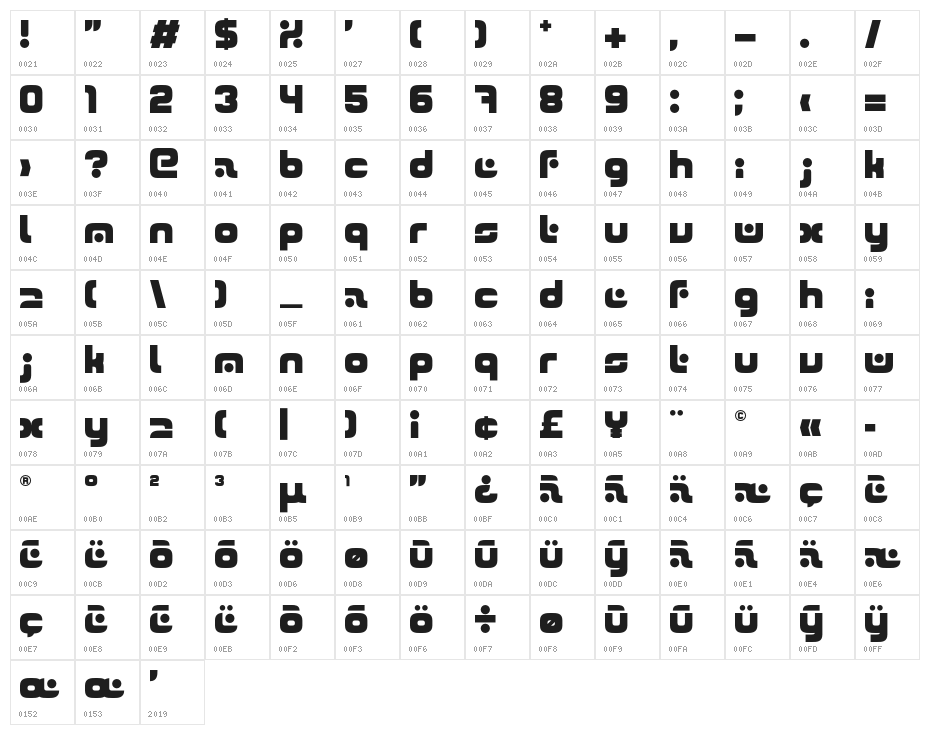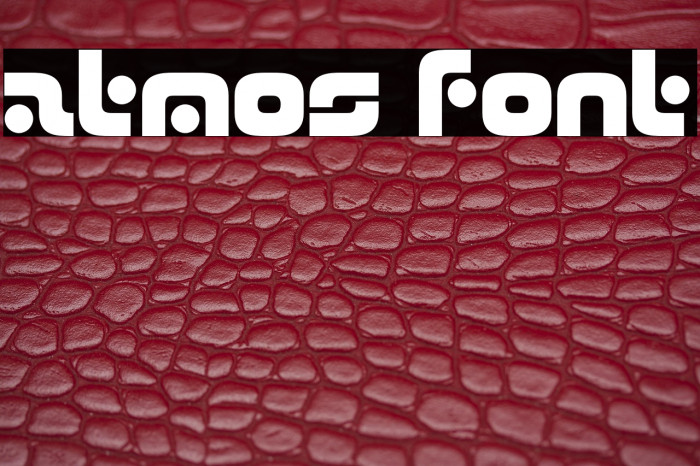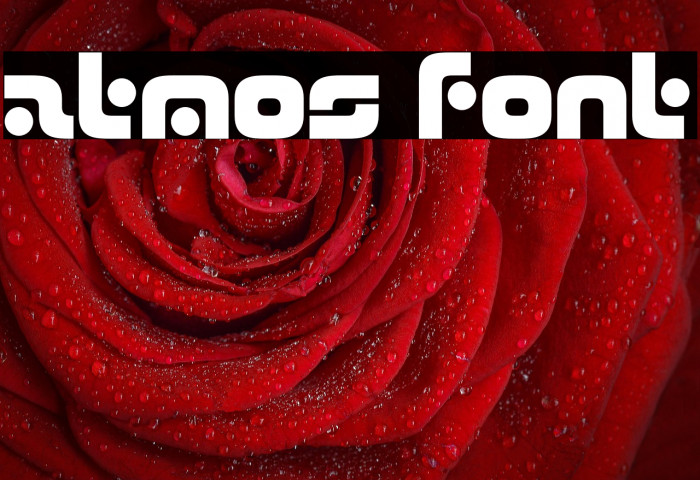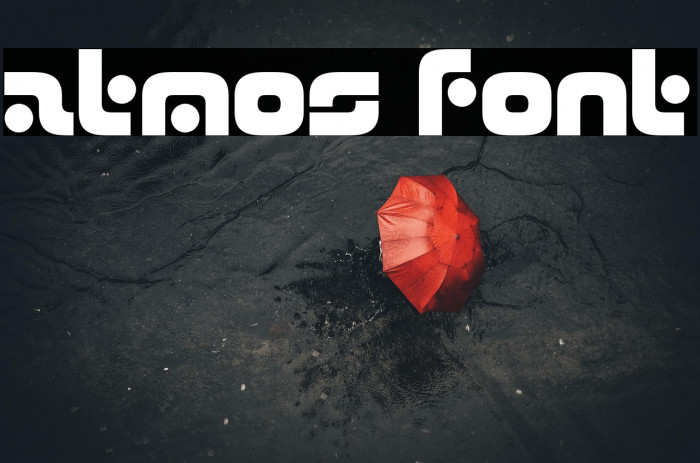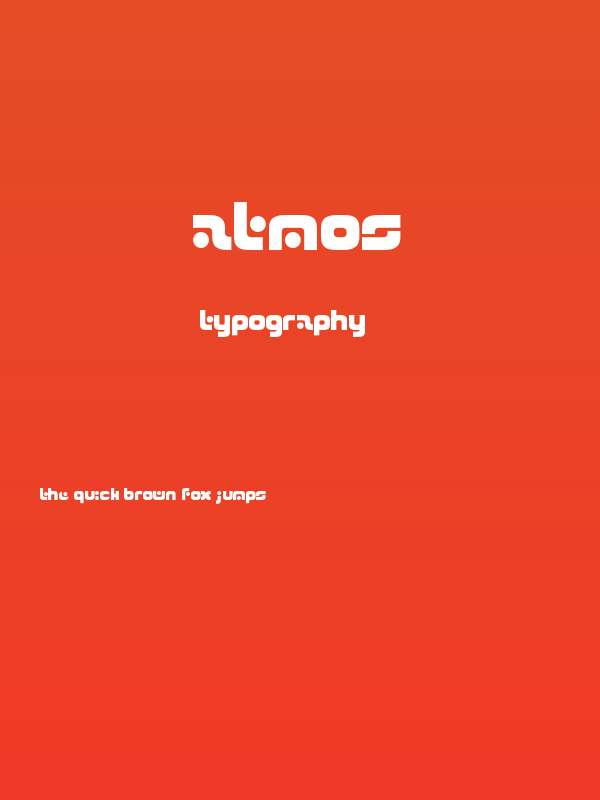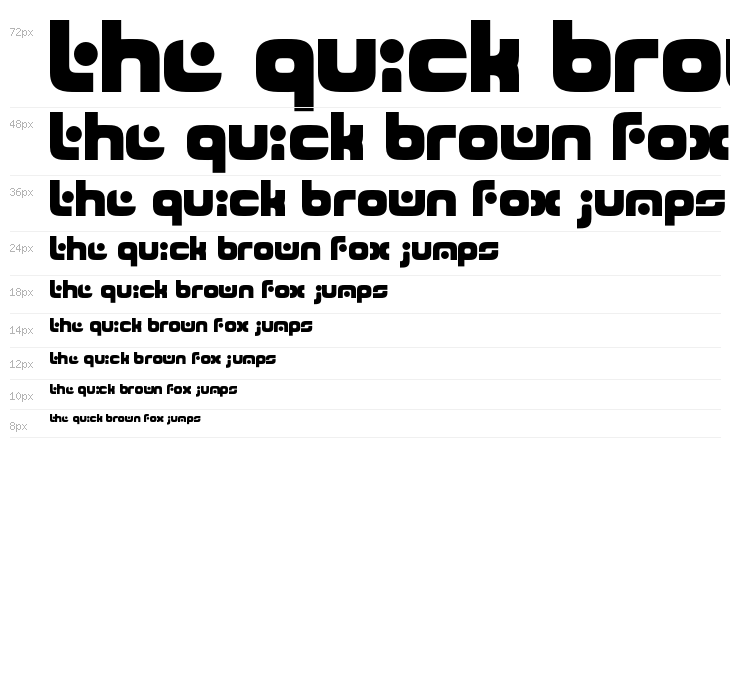
Atmos Font
Atmos Description
This font features a bold and futuristic design with a geometric and modular structure. The characters are constructed with thick, uniform strokes and rounded edges, giving it a smooth and cohesive appearance. The letters have a distinct, almost digital feel, with some characters incorporating unique cutouts and shapes that enhance its modern aesthetic. The font maintains a consistent weight throughout, providing a strong visual impact. Its style is both playful and assertive, making it suitable for creative and contemporary projects.
| Use Case | Logos, Headlines, Posters |
| Proposed Projects | Ideal for technology branding, video game titles, sci-fi movie posters, and modern advertising campaigns. |